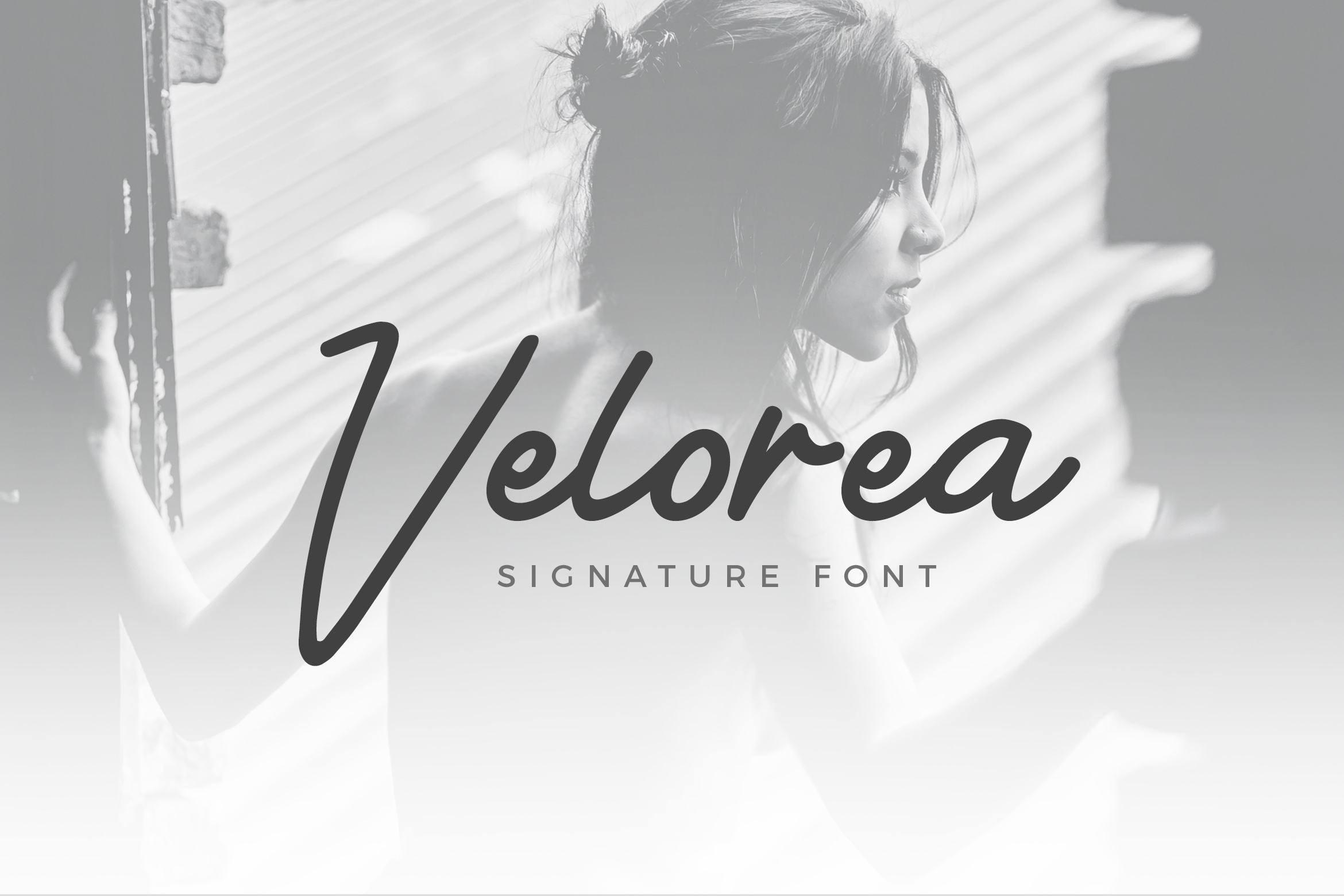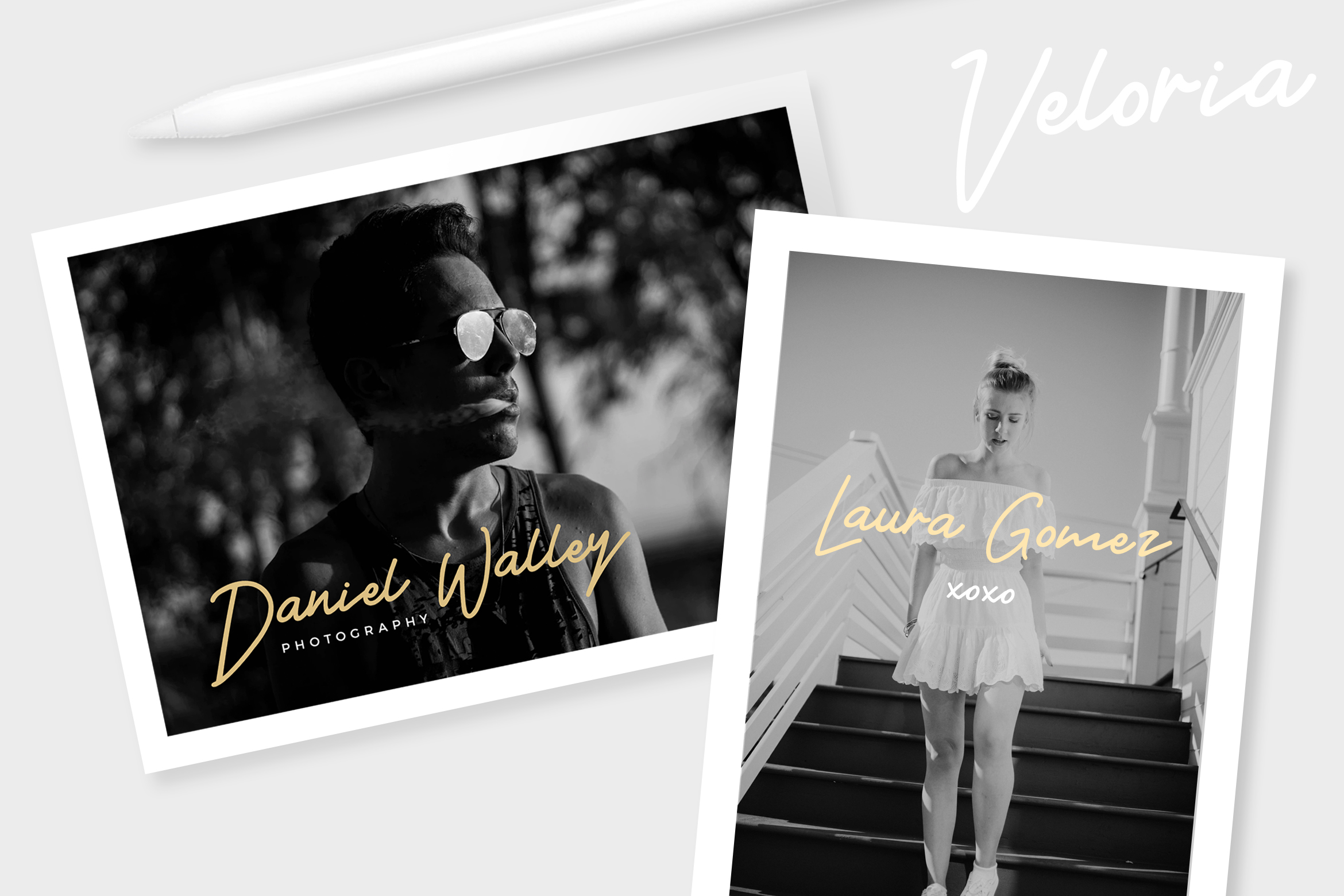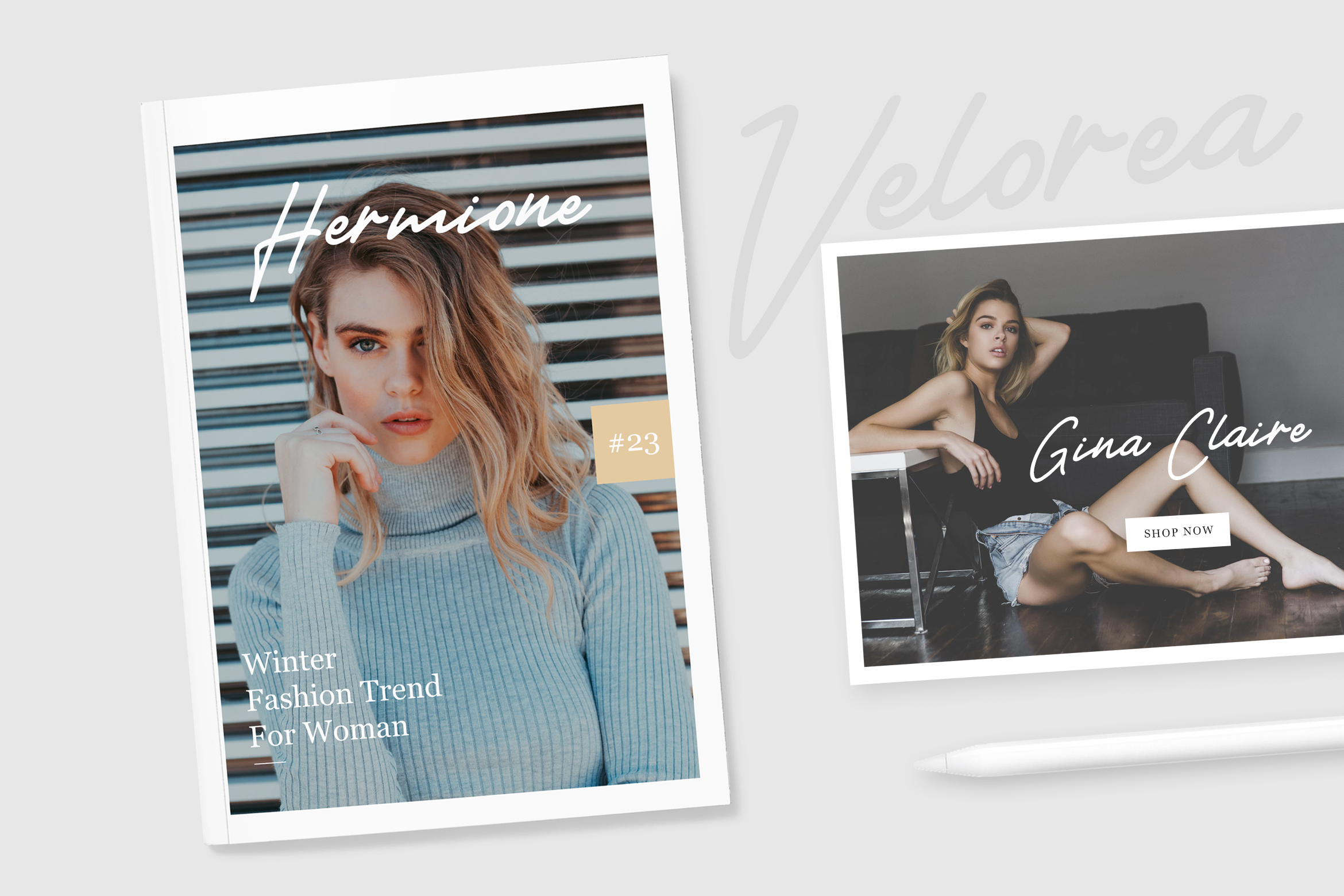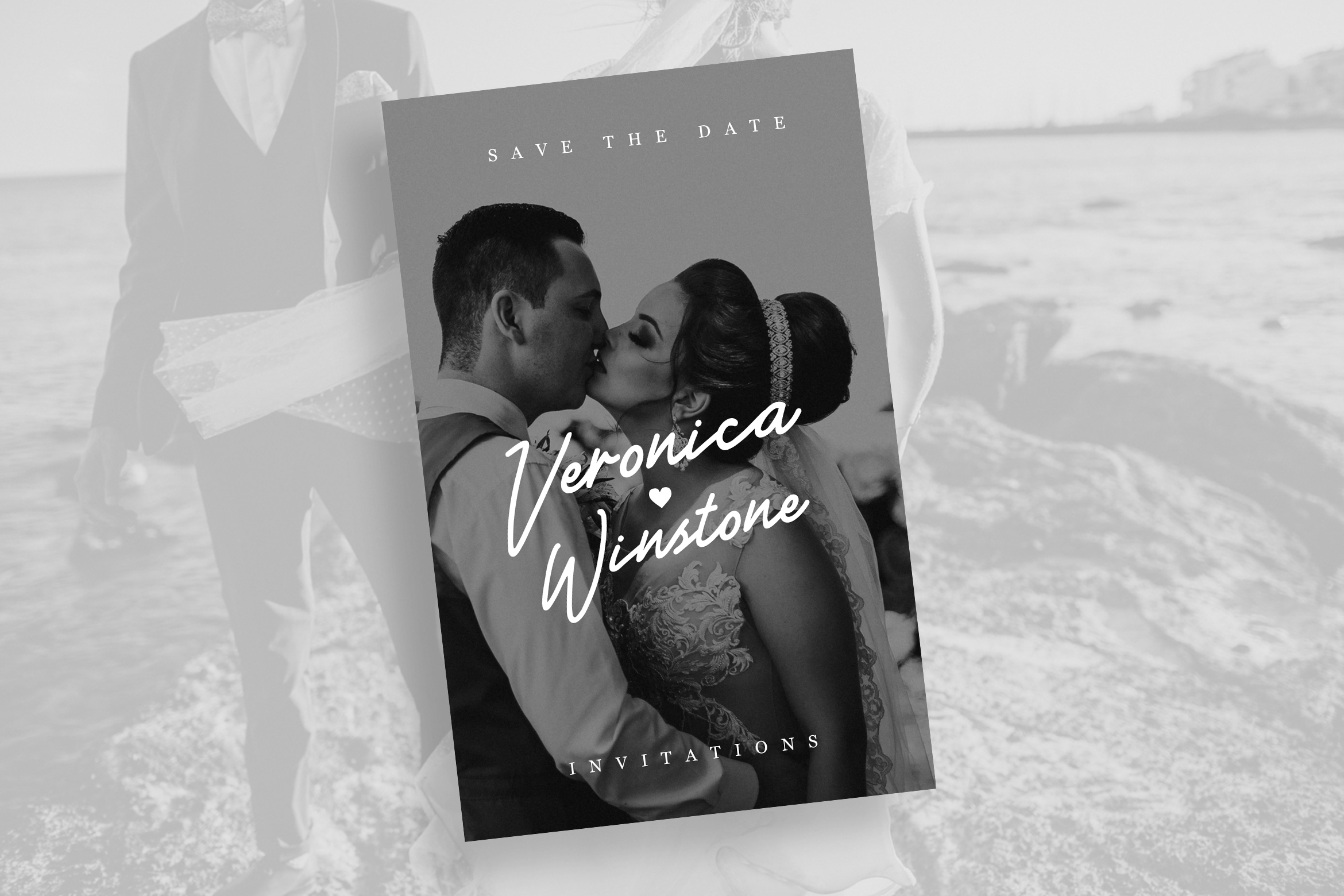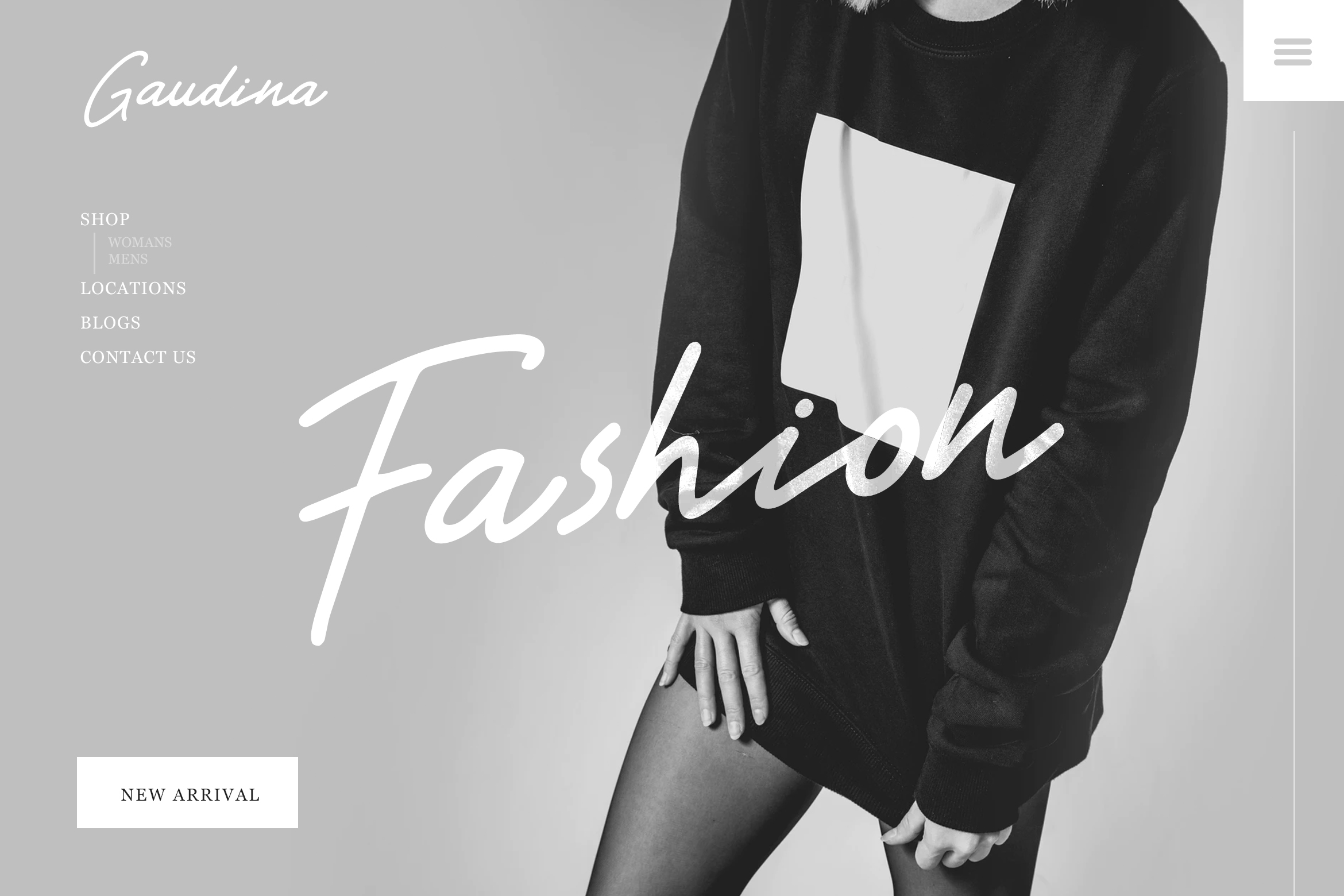
Velorea Font
About Velorea Font
Velorea is a stunning signature script, with tons of modernity and sensibility. This font is monoline and clearly legible, so your designs can have a hip appeal with tons of stylistic appeal.